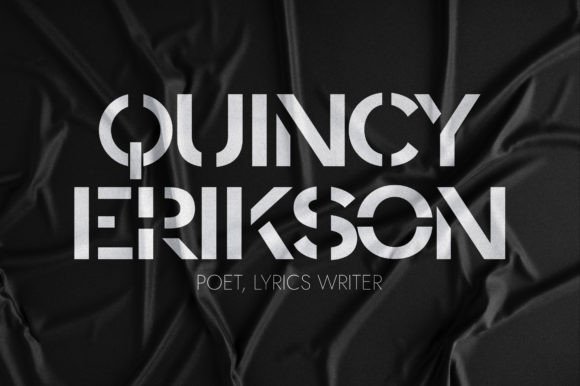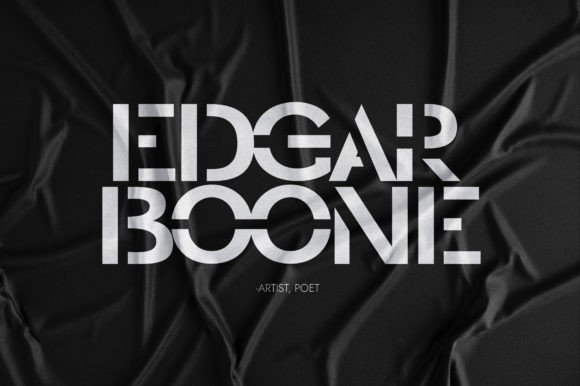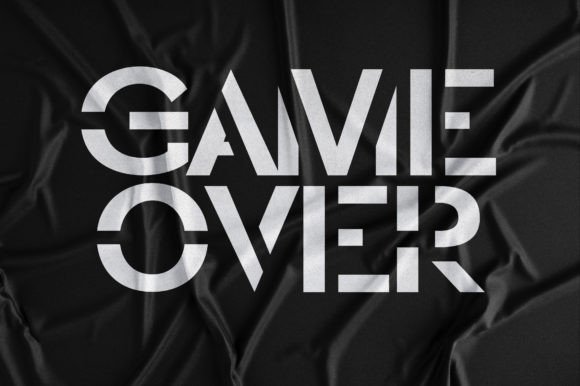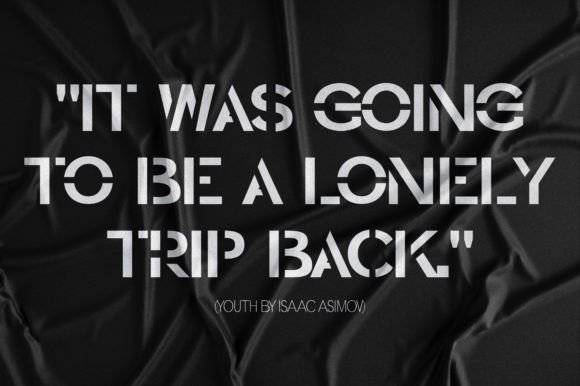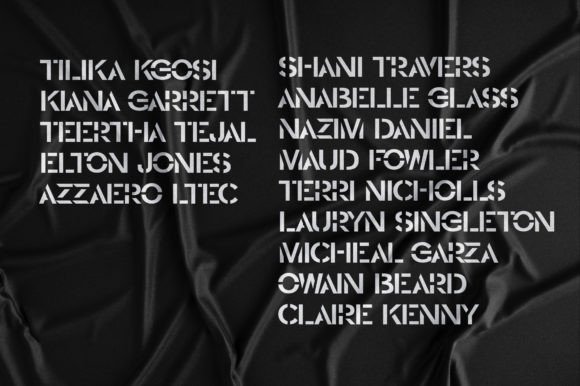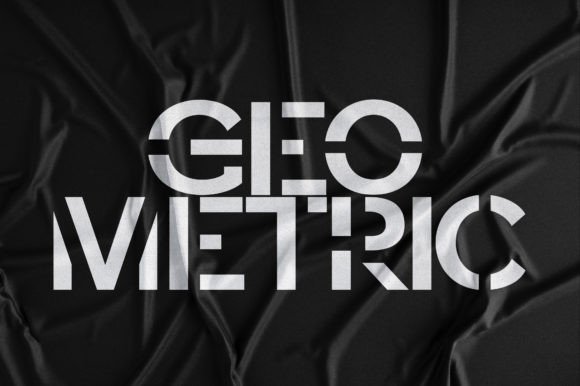
Cavqur Font: Elevate Your Designs with a Geometric, Stencil, and Minimalist Sans Serif Typeface
In the world of typography, fonts play a crucial role in conveying the tone and aesthetic of a design. For designers and crafters looking to add a touch of modernity and sophistication to their creations, the Cavqur font is an excellent choice. This geometric, stencil, and minimalist sans serif typeface is designed to make a statement, and its versatility makes it perfect for a wide range of applications.
What is Cavqur Font?
Cavqur is a carefully crafted font that combines geometric shapes with a stencil design, resulting in a unique and captivating visual identity. Its minimalist sans serif style ensures that the font remains clean and legible, making it suitable for use in various contexts, from digital designs to print materials.
Key Features of Cavqur Font
• Geometric Construction: The font’s geometric shape construction gives it a modern and futuristic feel, making it perfect for designs that require a cutting-edge look.
• Stencil Design: The stencil style adds a touch of industrial chic to the font, making it suitable for designs that require a bold and edgy look.
• Minimalist Sans Serif: The font’s minimalist sans serif style ensures that it remains clean and legible, even at small sizes.
Use Cases for Cavqur Font
Cavqur’s versatility makes it an excellent choice for a wide range of applications, including:
• Posters: Create eye-catching posters for movies, events, or advertising campaigns with Cavqur’s bold and geometric design.
• Video Games: Add a touch of modernity to your video game designs with Cavqur’s futuristic and edgy style.
• Apps: Use Cavqur to create visually appealing app icons, UI elements, and marketing materials.
• Huge Banners: Make a statement with Cavqur’s bold and geometric design on large banners and billboards.
• Horror Movies: Create a spooky and eerie atmosphere with Cavqur’s stencil design, perfect for horror movie posters and marketing materials.
• Sports: Use Cavqur to create bold and dynamic sports branding, including logos, jerseys, and marketing materials.
• Music Albums: Add a touch of modernity to your music album designs with Cavqur’s geometric and futuristic style.
• Horror Themes: Create a spooky and eerie atmosphere with Cavqur’s stencil design, perfect for horror-themed designs and marketing materials.
• Space or Futuristic Themes: Use Cavqur to create a futuristic and otherworldly atmosphere in your designs, perfect for space-themed projects and sci-fi designs.
• War Themes: Create a bold and edgy look with Cavqur’s stencil design, perfect for war-themed designs and marketing materials.
• Action Themes: Use Cavqur to create dynamic and bold designs for action-themed projects, including movie posters and marketing materials.
• Mystery Themes: Add a touch of intrigue and mystery to your designs with Cavqur’s geometric and futuristic style.
Why Choose Cavqur Font?
Cavqur is a high-quality font that offers a unique combination of geometric, stencil, and minimalist design elements. Its versatility makes it an excellent choice for designers and crafters looking to add a touch of modernity and sophistication to their creations. With Cavqur, you can:
• Elevate Your Designs: Add a touch of modernity and sophistication to your designs with Cavqur’s unique and captivating visual identity.
• Stand Out from the Crowd: Cavqur’s bold and geometric design ensures that your designs stand out from the crowd and grab attention.
• Enhance Legibility: The font’s minimalist sans serif style ensures that your text remains legible, even at small sizes.
In conclusion, Cavqur is a versatile and high-quality font that offers a unique combination of geometric, stencil, and minimalist design elements. Its wide range of use cases makes it an excellent choice for designers and crafters looking to add a touch of modernity and sophistication to their creations. Whether you’re designing posters, video games, apps, or marketing materials, Cavqur is a confident addition to your font library.